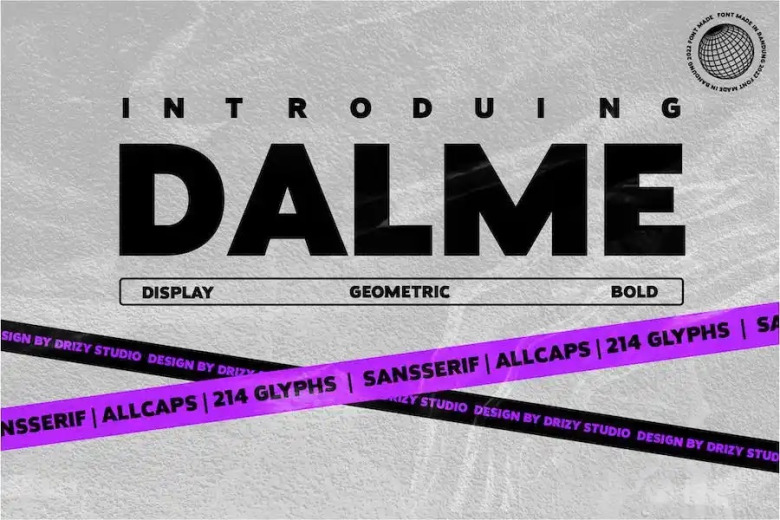
Dalme Font
Introducing Dalme! a bold geometric display font from Drizy! Dalme will help you create a success project. Dalme Features: Uppercase Numeral & Punctuation Multilinguals & Ligatures Do not hesitate to contact me if you have any questions about this product. Hope you like it and enjoy.
Dalme Bold Sans Font